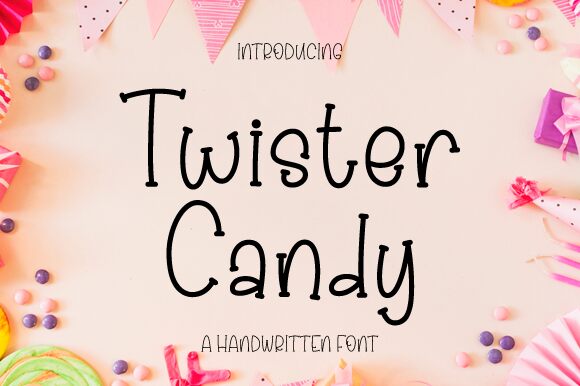
Twister Candy, a delightful creation by Nirmala Creative, exudes whimsy and fun with its cartoon-style flair. The playful curves and jaunty tilt of each letter seem to dance across the page, reminiscent of the joyful spirit one might find in a lively children’s book or an animated adventure's title screen. Its light and buoyant form lend it an air of casual charm that is both friendly and approachable.
This display font is perfectly suited for projects that aim to capture the imagination-think party invitations, product packaging for sweets or toys, and engaging educational materials. Twister Candy's cheerful presence can instantly infuse any creative work with a sense of mirth and wonder, making it an excellent choice for designers looking to sprinkle a little lighthearted magic into their compositions.